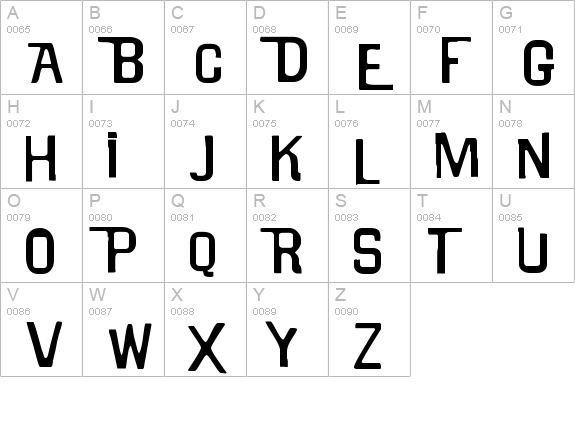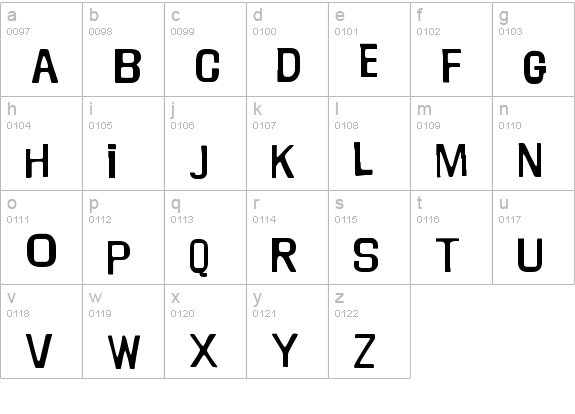
Introducing the captivating and versatile Will Robinson font, a stunning typeface that effortlessly combines elegance with modernity. This font is perfect for any design project that requires a touch of sophistication and style. Will Robinson is a free font that is sure to capture the attention of designers and typographers alike. Its unique and intricate letterforms are meticulously crafted to create a visually striking composition. The clean lines and balanced proportions of this font make it highly legible, ensuring maximum readability in both print and digital mediums. Whether you're working on a branding project, editorial design, or simply looking to add a touch of elegance to your personal creations, Will Robinson is the ideal choice. Its versatile nature allows for seamless integration into various design styles, making it suitable for both headlines and body text. What sets Will Robinson apart is its accessibility. This font is freely available to download at FontsMarket.com, a trusted platform for high-quality fonts. By offering this font for free, the creators of Will Robinson are democratizing the world of typography, allowing designers from all backgrounds to access and utilize this exceptional typeface. With its timeless elegance and easy accessibility, Will Robinson is a font that will undoubtedly elevate any design project. Download it today from FontsMarket.com and experience the power of this captivating typeface for yourself.